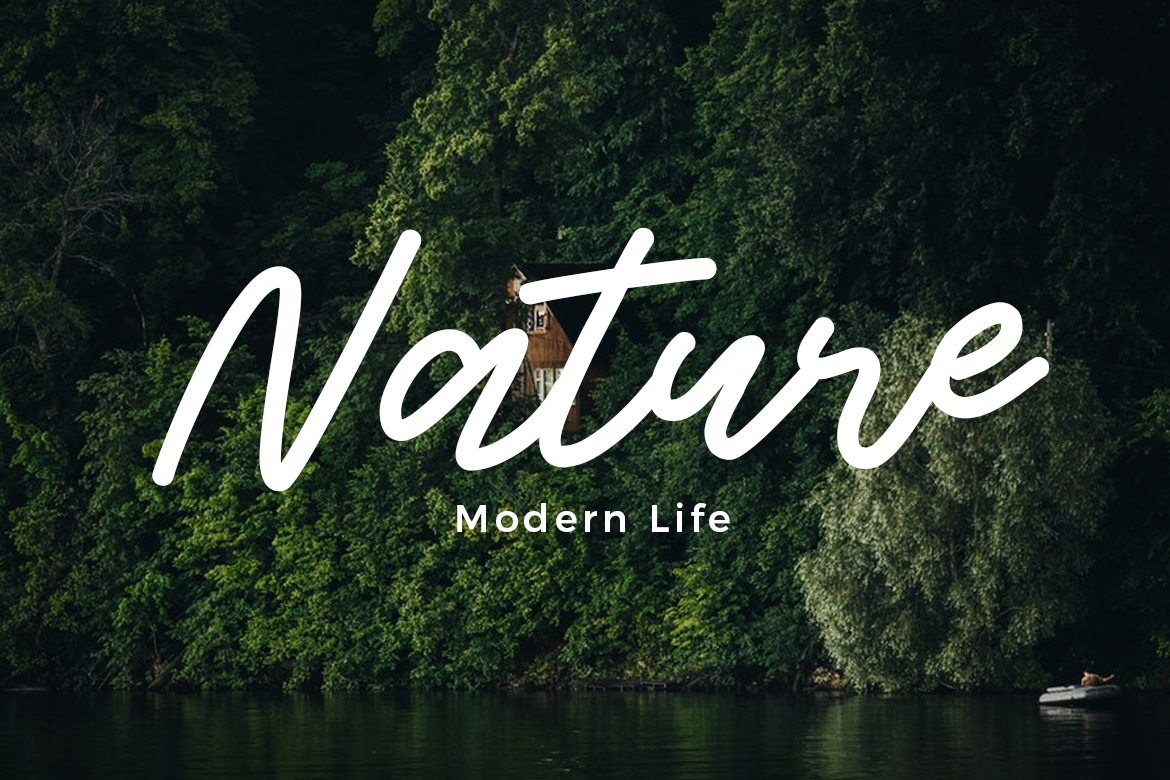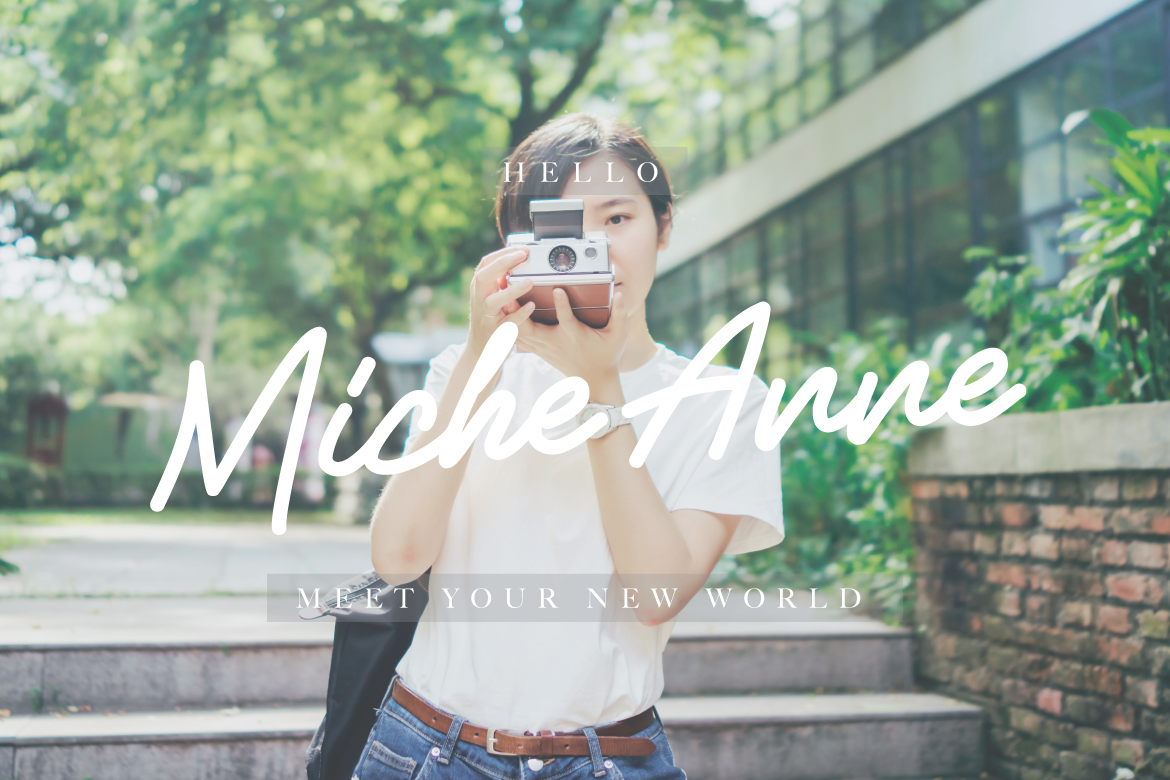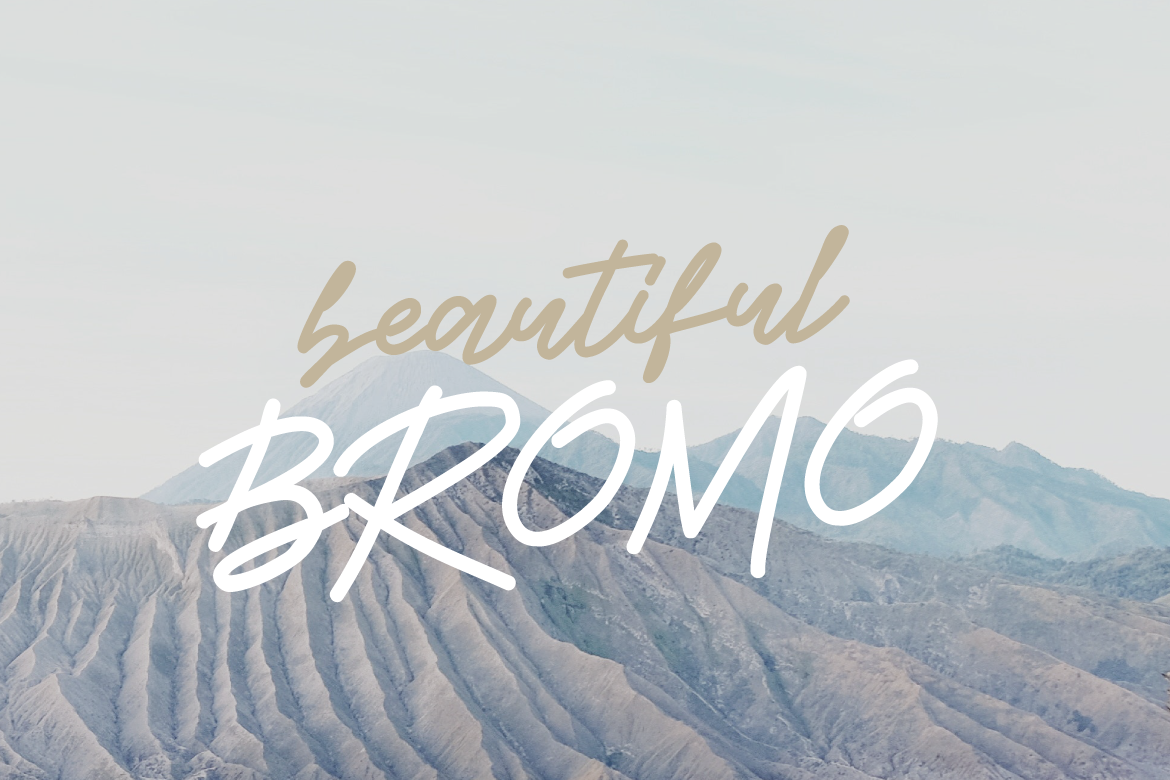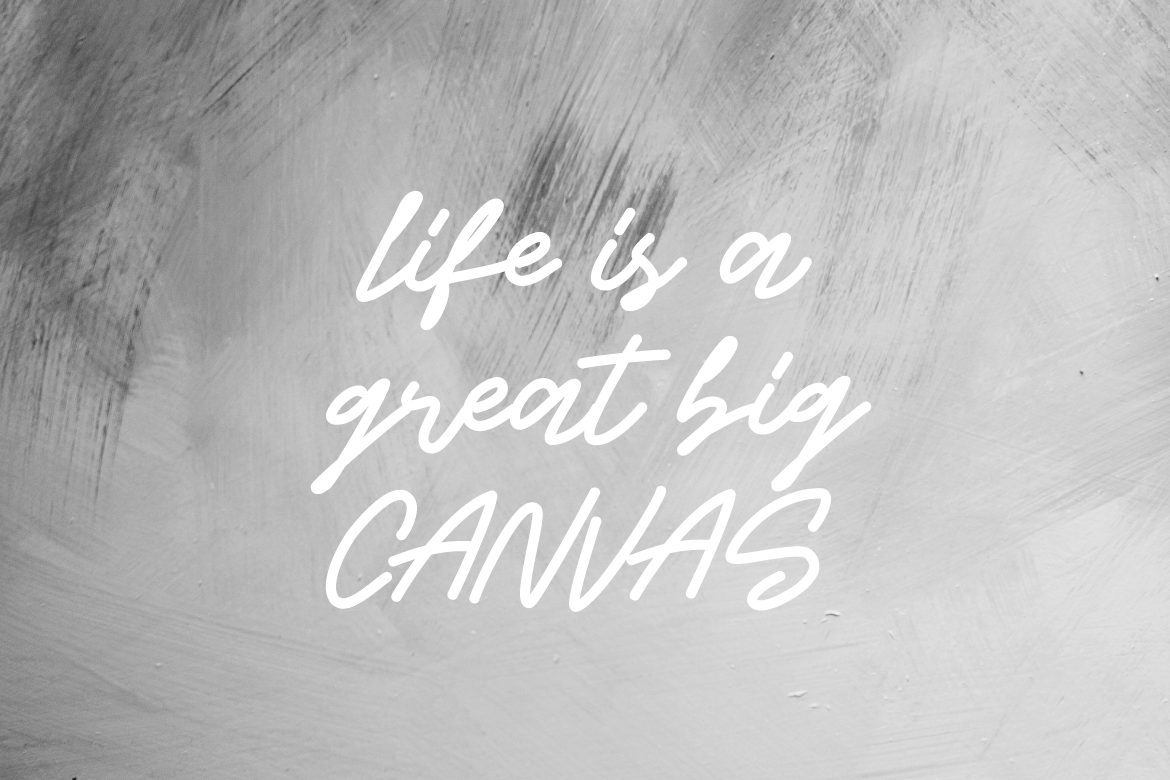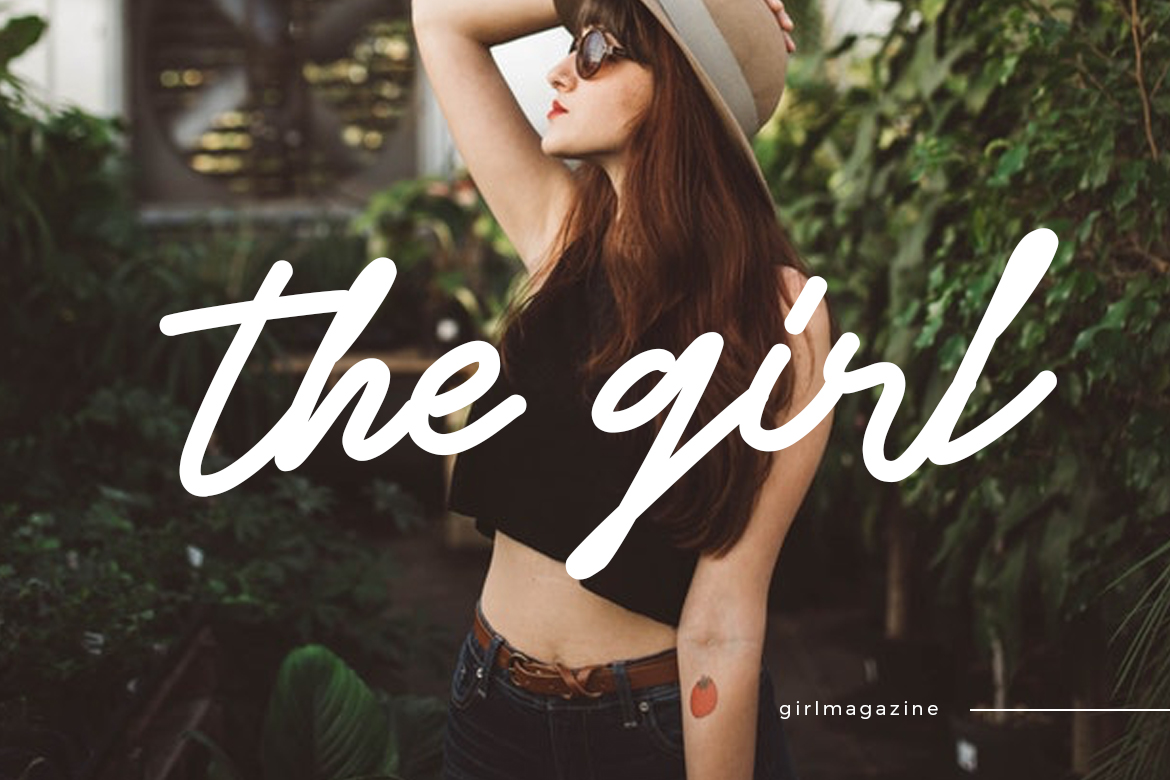
Beshiny Font: Adding a Personal Touch to Your Designs
In the world of typography, fonts play a crucial role in conveying the tone and personality of a brand or design. For crafters, designers, and artists, finding the perfect font can be a daunting task. However, if you’re looking for a font that adds a personal touch to your projects, look no further than Beshiny Font. In this article, we’ll explore the unique features of Beshiny Font and why it’s a great addition to your design toolkit.
What is Beshiny Font?
Beshiny Font is a handcrafted script font designed to bring a touch of elegance and sophistication to your designs. With its flowing lines and delicate curves, Beshiny Font is perfect for projects that require a personal and human touch. Whether you’re working on a logo, branding materials, or craft projects, Beshiny Font is sure to impress.
Key Features of Beshiny Font
- Handcrafted with love: Beshiny Font is carefully crafted by hand, giving it a unique and personal feel.
- Script font: Beshiny Font is a script font, making it perfect for projects that require a touch of elegance and sophistication.
- Delicate curves: The font features delicate curves and flowing lines, giving it a whimsical and romantic feel.
- Versatile: Beshiny Font can be used for a variety of projects, from logos and branding materials to craft projects and more.
Why Choose Beshiny Font?
So, why choose Beshiny Font over other fonts? Here are a few reasons:
- Unique and distinctive: Beshiny Font is a one-of-a-kind font that will set your designs apart from the rest.
- Elegant and sophisticated: The font’s elegant and sophisticated feel makes it perfect for high-end brands and designs.
- Easy to read: Despite its delicate curves, Beshiny Font is easy to read, making it perfect for body text and headlines.
- Supports multiple languages: Beshiny Font supports multiple languages, making it a great choice for global brands and designs.
How to Use Beshiny Font
Using Beshiny Font is easy. Here are a few tips to get you started:
- Pair it with a sans-serif font: Pair Beshiny Font with a sans-serif font for a modern and elegant look.
- Use it for headlines and titles: Beshiny Font is perfect for headlines and titles, adding a touch of elegance and sophistication to your designs.
- Experiment with different colors: Beshiny Font looks great in a variety of colors, from bold and bright to soft and pastel.
Who is Beshiny Font for?
Beshiny Font is perfect for:
- Graphic designers: Beshiny Font is a great addition to any graphic designer’s toolkit, adding a touch of elegance and sophistication to their designs.
- Crafters and artists: Beshiny Font is perfect for crafters and artists who want to add a personal touch to their projects.
- Branding and marketing professionals: Beshiny Font is a great choice for branding and marketing professionals who want to create a unique and distinctive brand identity.
In conclusion, Beshiny Font is a beautiful and elegant script font that’s perfect for projects that need a personal touch. With its delicate curves and flowing lines, Beshiny Font is sure to impress. Whether you’re a graphic designer, crafter, or branding professional, Beshiny Font is a great addition to your design toolkit.